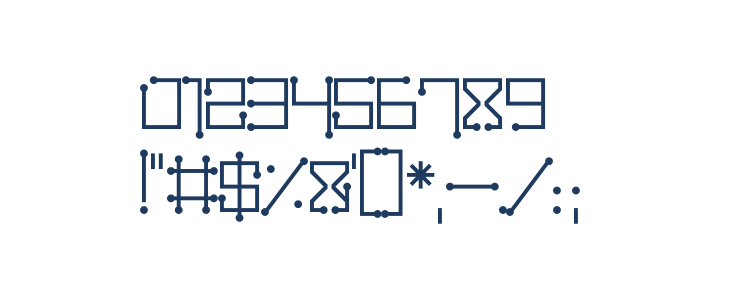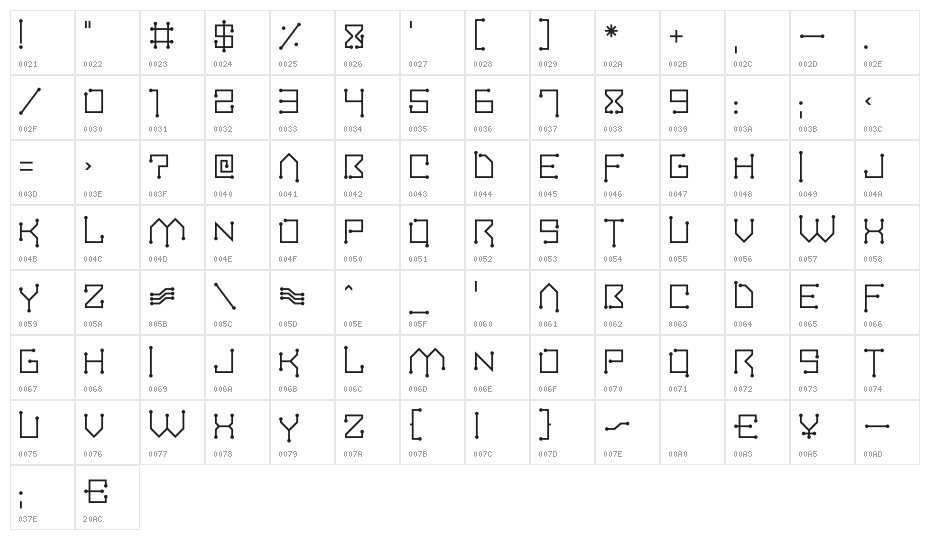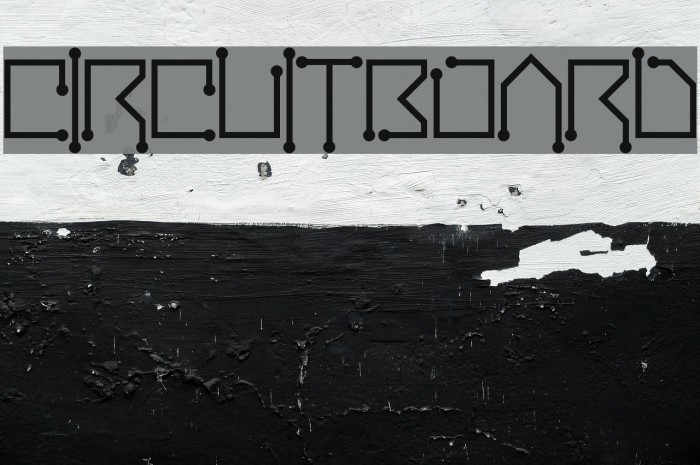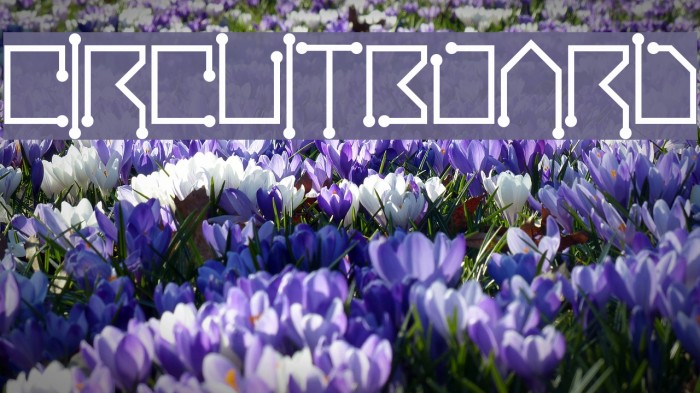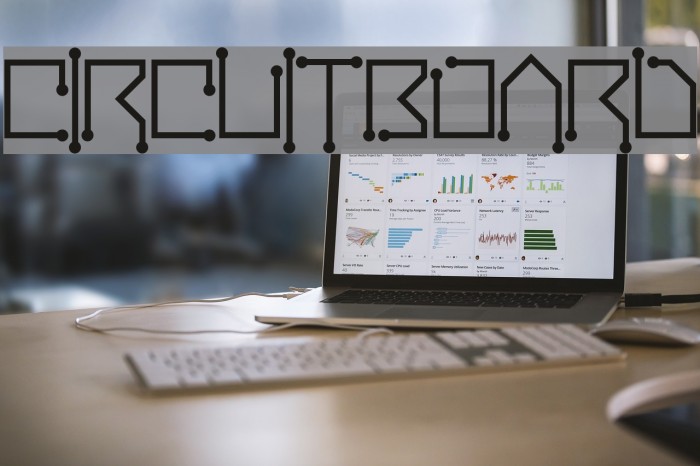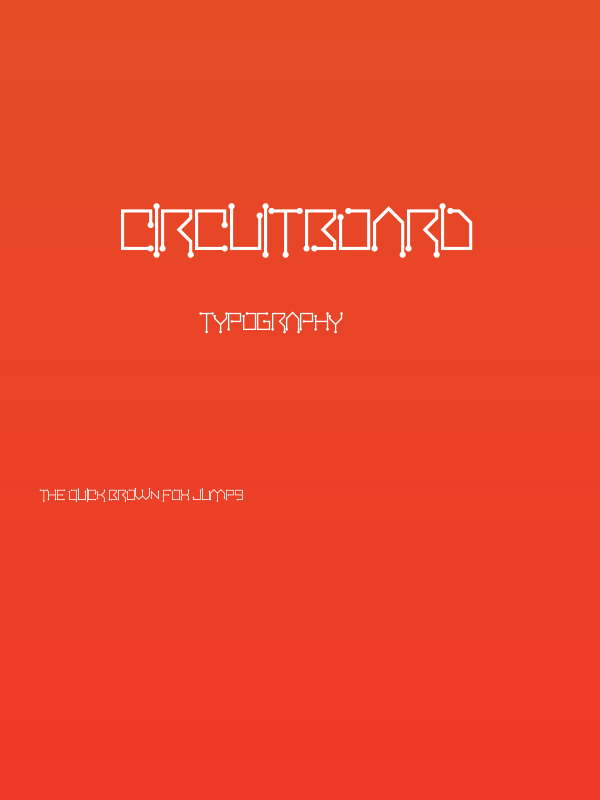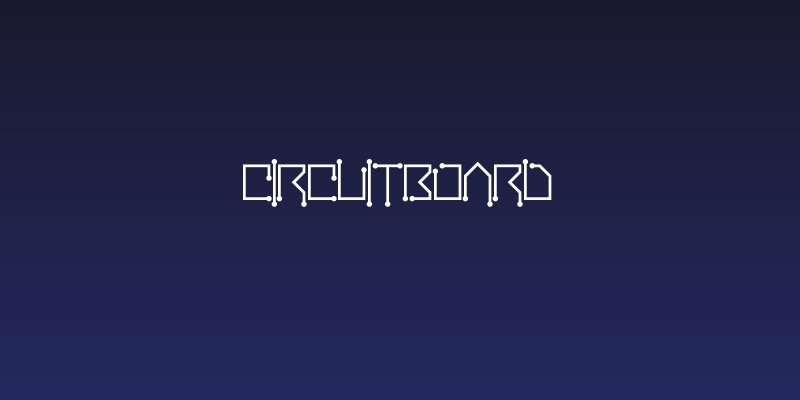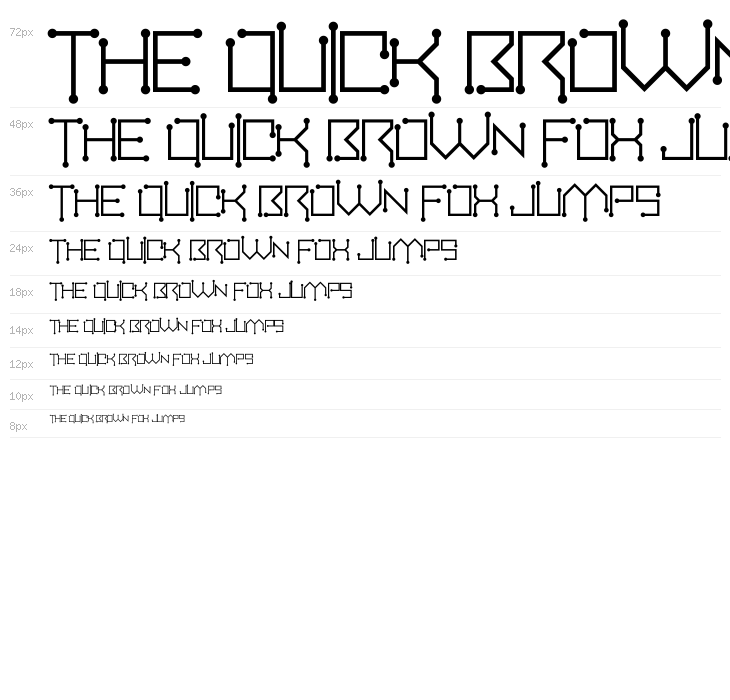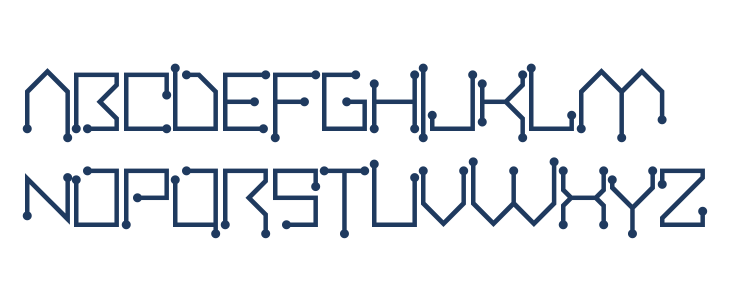
Circuitboard Font
Circuitboard Description
This font features a unique design inspired by electronic circuit boards. Each character is constructed with a series of straight lines and dots, mimicking the appearance of circuit paths and nodes. The geometric style gives it a modern and technological feel, making it ideal for projects that require a futuristic or tech-savvy aesthetic. The uppercase and lowercase letters maintain a consistent style, with numbers and special characters following the same design principles. The overall look is clean and structured, with a focus on precision and clarity.
| Proposed Projects | Ideal for technology branding, digital art, sci-fi themed projects, and educational materials related to electronics. |